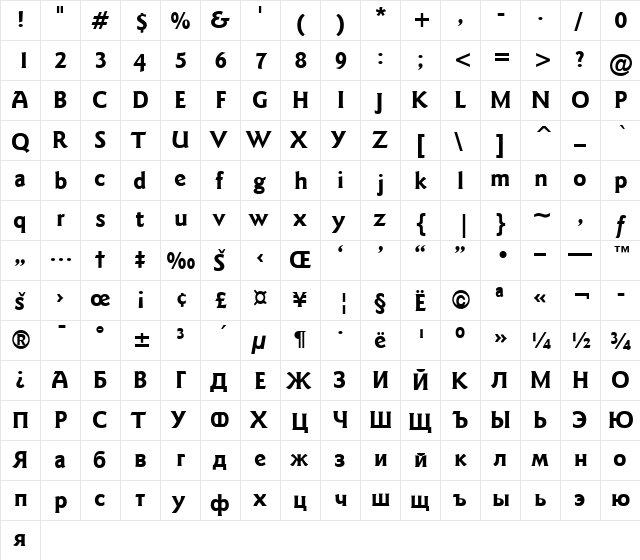
Gubernia TYGRA Bold
Design Context for Gubernia TYGRA Typeface
Gubernia TYGRA offers clean, dependable letterforms without strong stylistic allegiance, making it a practical choice for designers who need flexibility. The heavy weight commands attention and anchors typographic hierarchies.